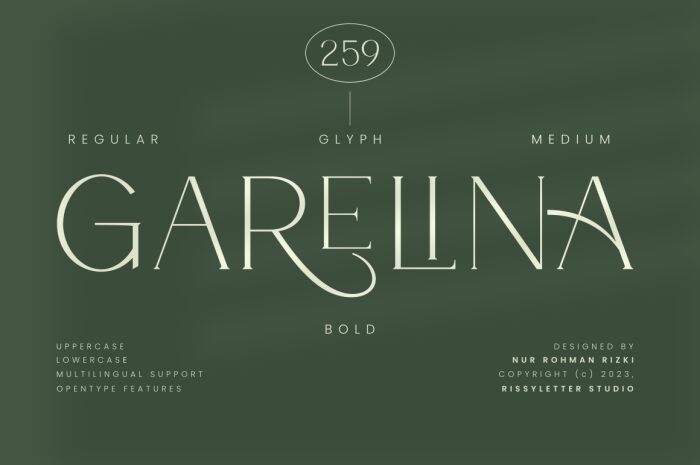
Garelina Bold
Garelina Bold emerges from the Garelina family with a presence that marries elegance and assertiveness. Crafted by Rissyletter Studio, this serif font exudes confidence through its robust strokes, while its serifs add a touch of classical finesse. The letters display an inviting roundness, suggesting both warmth and reliability.
In terms of application, Garelina Bold is versatile. It's perfectly suited for headlines that demand attention or branding projects that aim for a blend of traditional charm and contemporary boldness. Its legibility makes it an excellent choice for editorial work, where both style and clarity are paramount. Whether gracing the pages of a luxury magazine or anchoring the identity of a boutique brand, Garelina Bold stands out as a font with undeniable character and broad appeal.